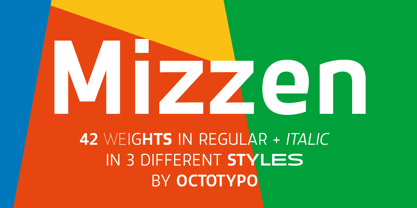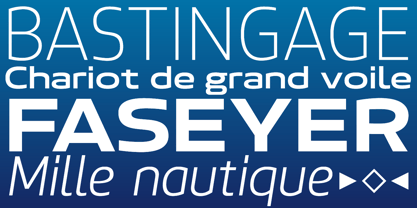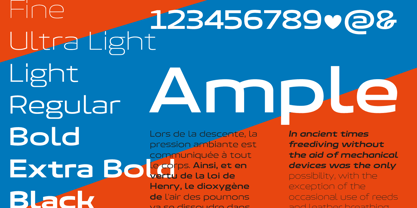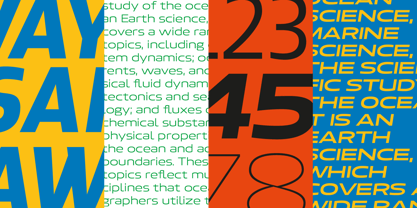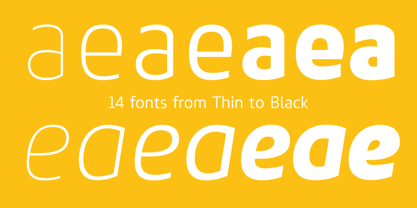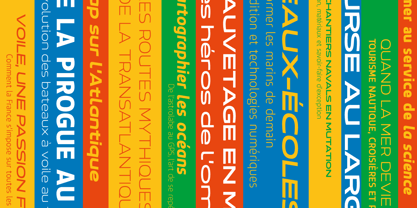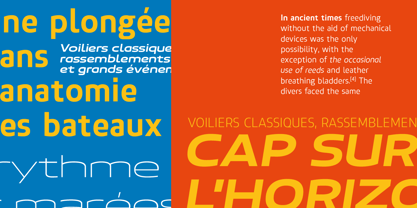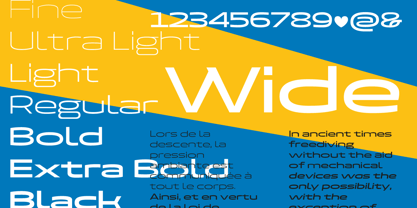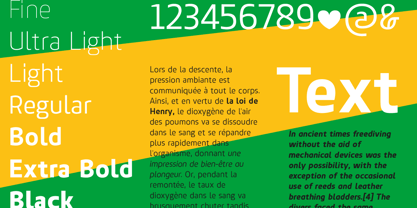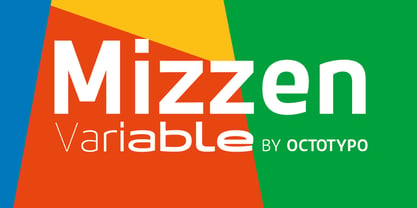
Mizzen Variable
A família de fontes Mizzen Variable foi desenhada por Julien Janiszewski e publicada pela Octotypo. Mizzen Variable contém 2 estilos e opções de pacote familiar. Saiba mais sobre esta família
Mizzen is a sans serif trimmed like a hull and named for the mast that keeps a ship on course. Built on sturdy stems, open apertures, and a generous x-height, it reads cleanly from dockside posters to tiny UI labels. Its curves round like sea-worn stone; its rhythm is tight but breathable, so copy sets quickly and headlines hit hard. Mizzen anchors identity work and wayfinding, then sails smoothly through long passages without glare. When your brand needs clear bearings and human warmth, hoist Mizzen and make steady headway. Available in versatile weights and styles, it holds alignment like rigging in a gale.